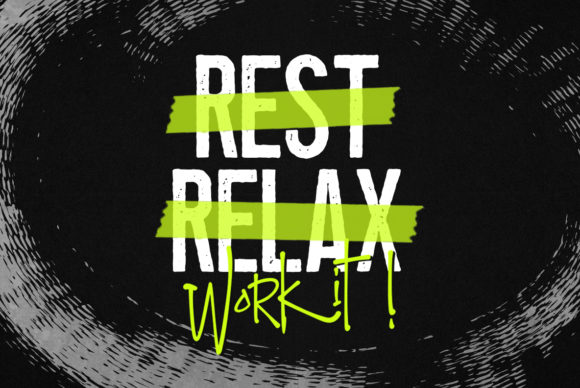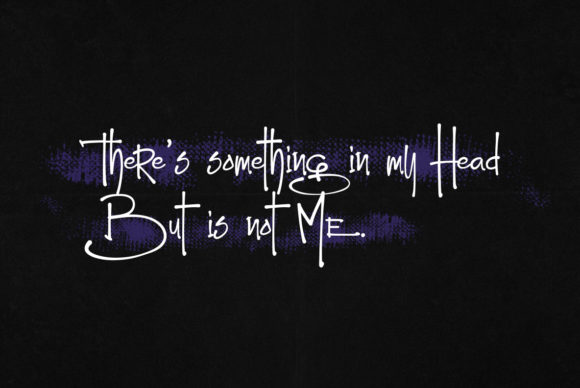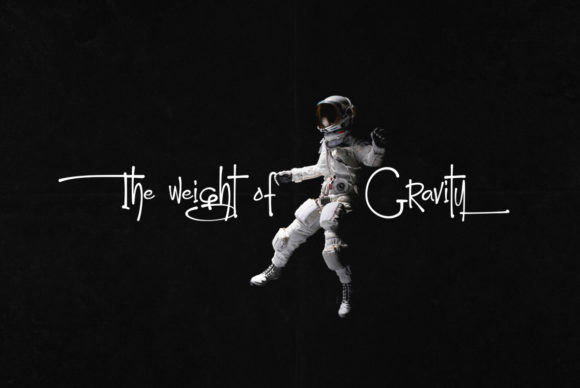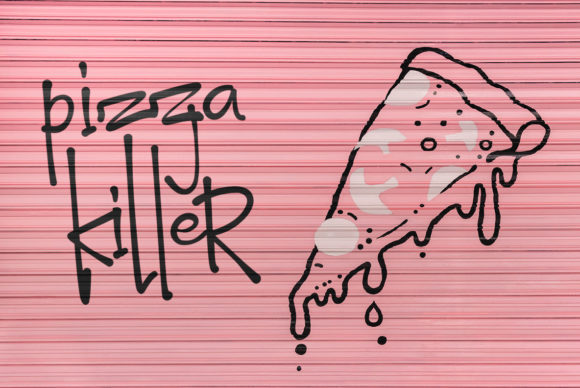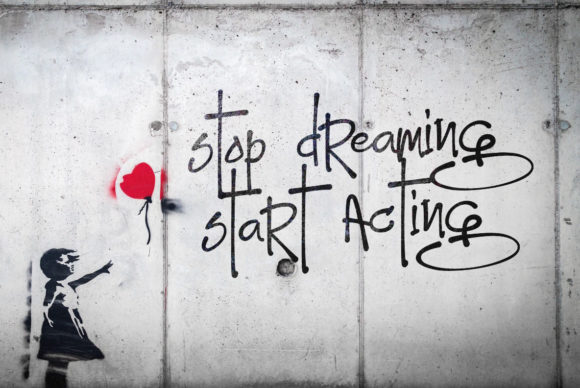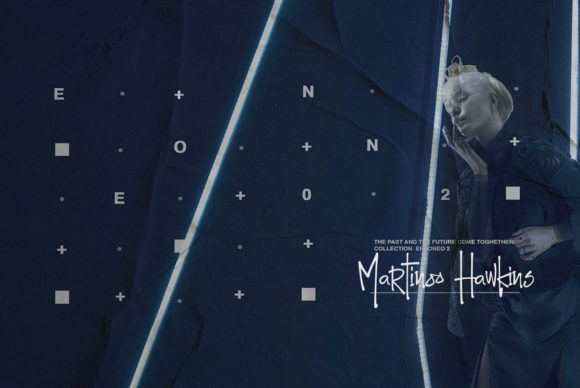
Introduction to Motereal Font
Have you ever been stuck in the middle of a creative project, desperately searching for that one font that can elevate your design to the next level? That’s exactly where the Motereal Font comes in – a unique and fun script that’s sure to add a dash of contemporary charm to your work.
Whether you’re working on a logo, a social media graphic, or a poster, the Motereal Font is an excellent design resource that can help you achieve a high-quality look without sacrificing creativity. With its bold and playful style, this font is perfect for anyone looking to add some personality to their design.
Key Features of Motereal Font
- High-quality design resource for creative projects: The Motereal Font is a premium font designed to meet the needs of designers and artists working on various creative projects.
- Unique characteristics: The Motereal Font features a unique blend of modern and vintage elements, making it an excellent choice for designers looking for a distinctive and eye-catching font.
- Perfect for creative projects: The Motereal Font is ideal for use in creative projects such as branding, packaging, advertising, and editorial design.
Honest Review: Motoreal Font
I recently came across the Motereal Font and was excited to give it a try in my next design project. The first thing that caught my eye was the high quality and sleek design of the font. It’s perfect for a creative project that requires a modern and sophisticated look.
Here are some of the things that work well with the Motoreal Font:
- High-quality design that looks great on any platform
- Perfect for creative projects that require a modern and sophisticated look
While the Motereal Font is an excellent choice for many designers, there are a few limitations to be aware of:
- May not be suitable for projects that require a more traditional or vintage look
- Some users may find the font to be too minimalist or simple
Overall, I’m impressed with the Motoreal Font and would definitely recommend it to designers who are looking for a high-quality, modern font for their next project.
Motereal Font
The Motereal Font is a high-quality design resource perfect for creative projects. With its unique style and transparent background, it’s an ideal choice for designers and artists.
To get the most out of the Motereal Font, experiment with different font sizes, colors, and styles. You can also combine it with other design elements to create a unique look.
The Motereal Font is perfect for creative projects such as:
- Poster design
- Typography-based art